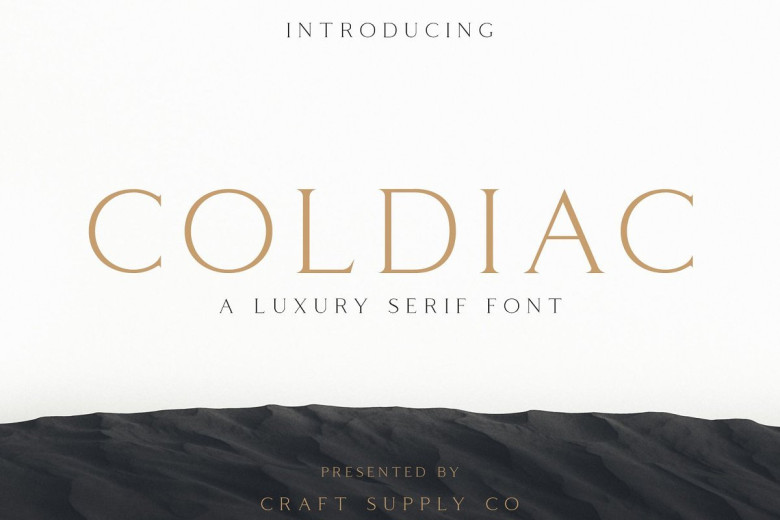
Coldiac Serif Font
Introducing Coldiac – A luxury serif font. It is designed and shared by Craft Supply Co.. Coldiac is a modern serif font family whose design refers us to the style of transitional serifs. The distinctive features of Coldiac – Luxury Serif Font are the relatively low contrast of strokes, the slightly squarish shapes of round characters and the emphasized businesslike nature.